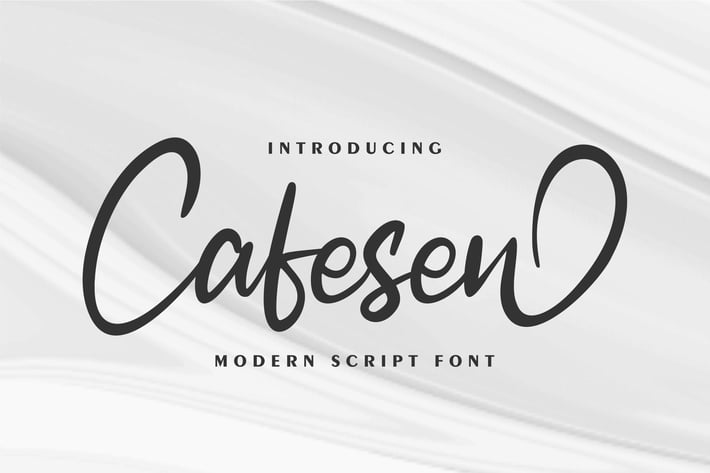
Cafesen | Modern Script Font
Cafesen | Modern Script Font with a calligraphy style, So beautiful on invitation like greeting cards, branding materials, business cards, quotes, posters, and more!